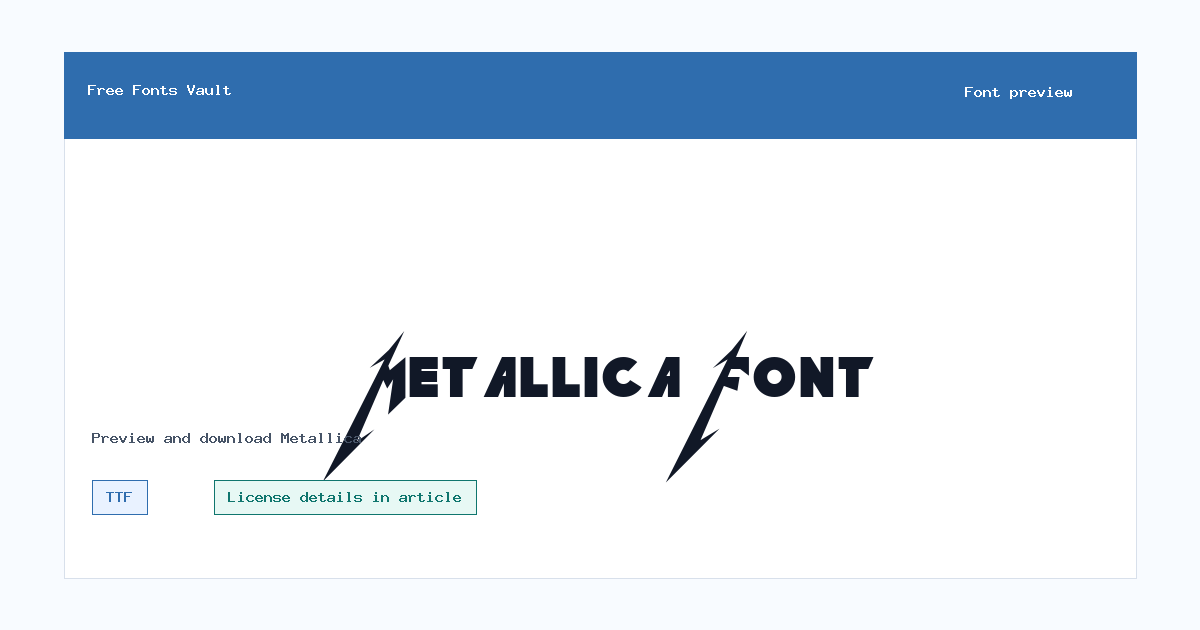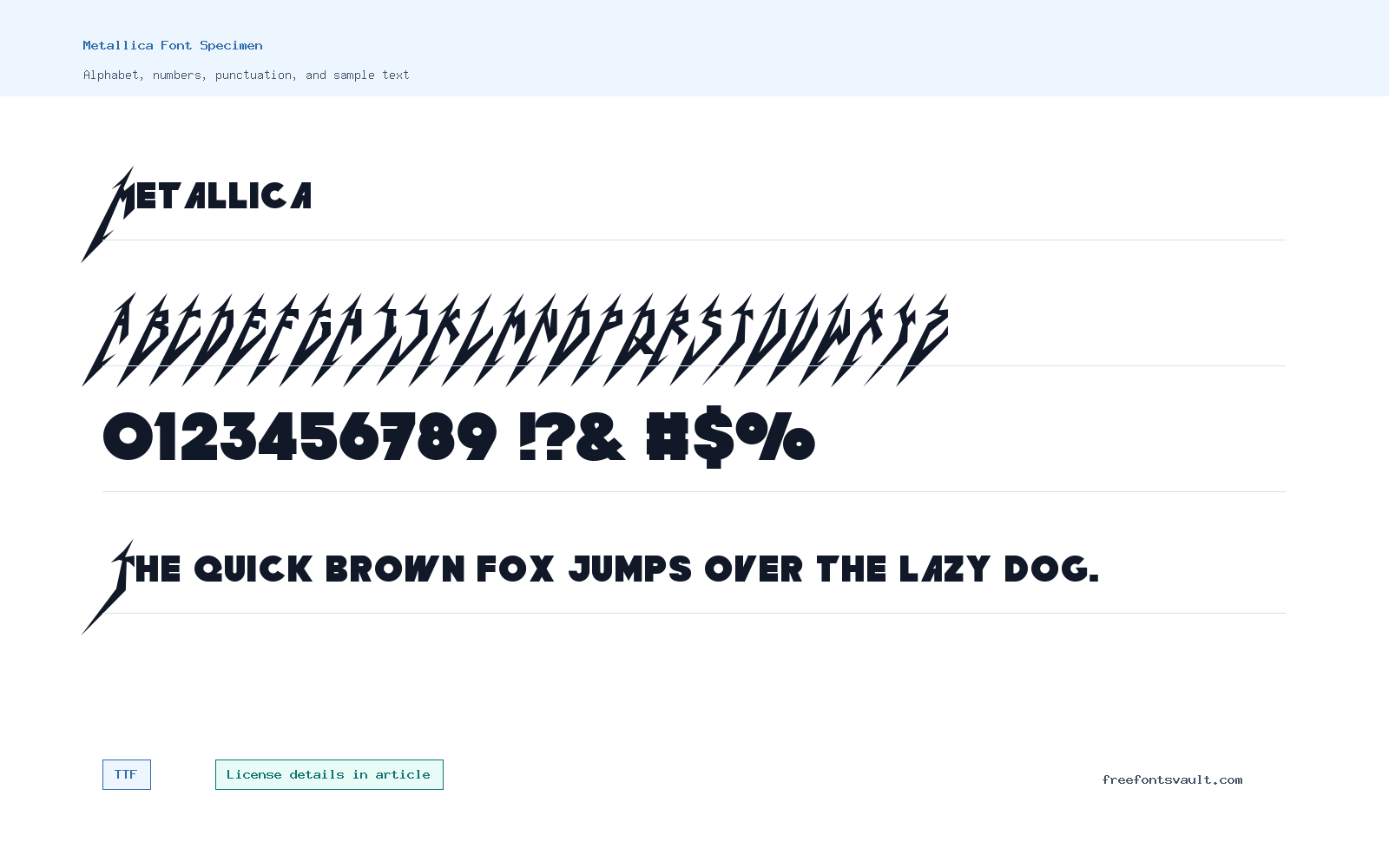
Metallica
- Designer Metallica © (MedRida).
Metallica font.
Metallica is a sharp display font built for short, high-impact words rather than quiet reading text. Use the live preview to test the exact title, logo idea, poster line, or cover text you want before downloading the TTF file.
About Metallica
This is the kind of font that works best when the word itself is the visual hook. Try it for a band-style title treatment, event poster, album mockup, gaming graphic, sticker concept, YouTube thumbnail, or bold social post. For paragraphs, menus, captions, or interface text, pair it with a clean sans serif so the design stays readable.
- Designed for title, poster, logo-style, and graphic display work
- Strong personality that should be tested at the final size before use
- Best paired with a simpler reading font for body copy and captions
- Poster titles, cover graphics, thumbnails, and short headlines
- Logo drafts, sticker concepts, fan-style artwork, and event visuals
- Large text where spacing, silhouette, and mood matter more than paragraph comfort
What is Metallica best used for?
It is best for short display text: posters, cover art, logo drafts, social graphics, stickers, and bold headings. It is not ideal for long paragraphs.